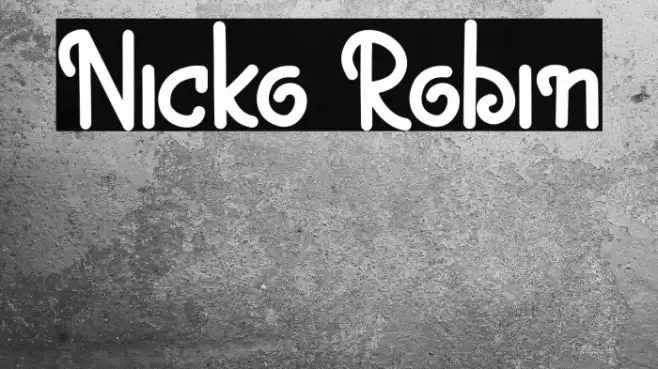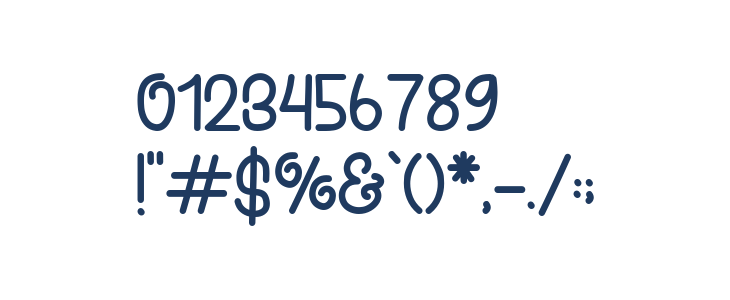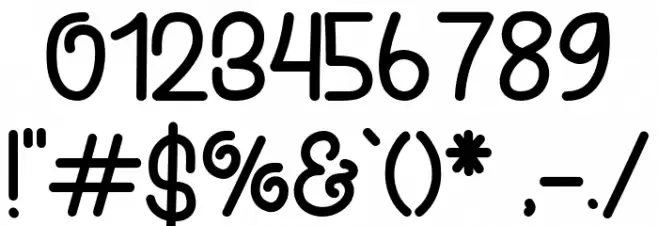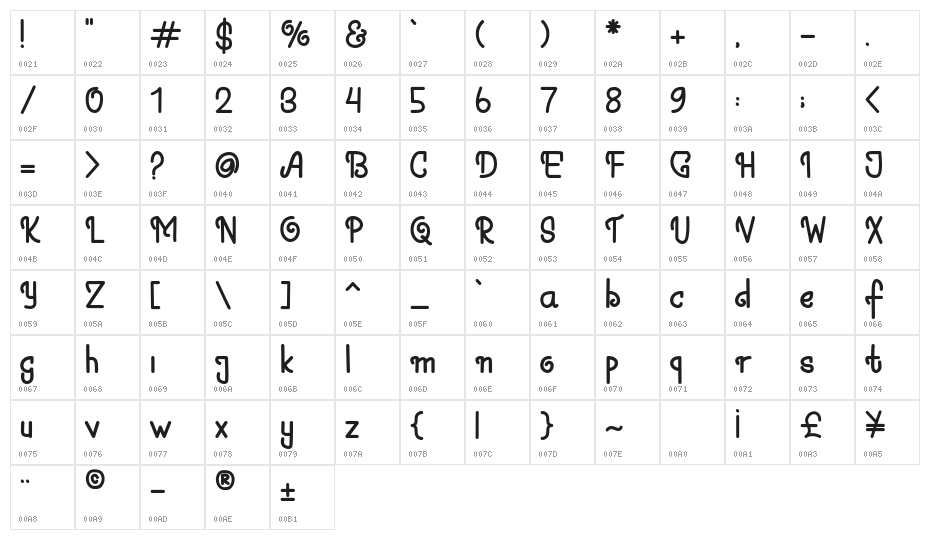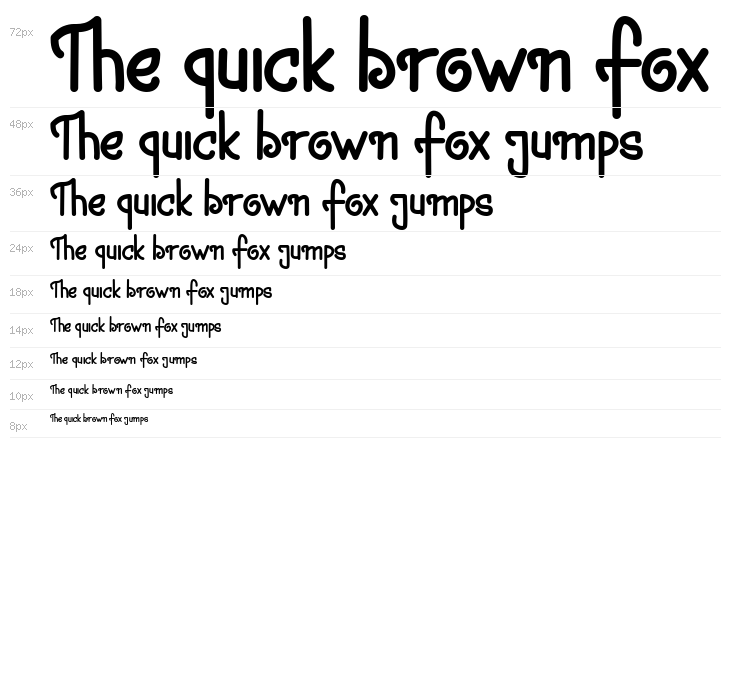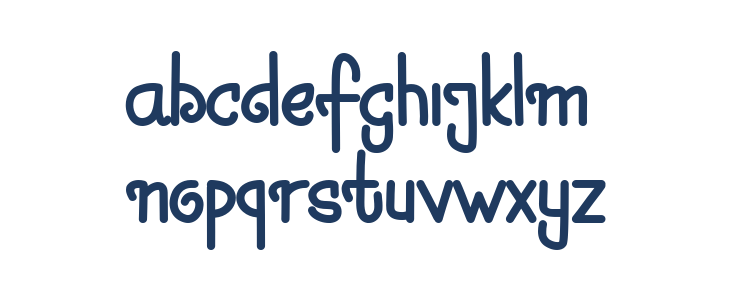
Nicko Robin Font
Nicko Robin Description
This playful and rounded font features a unique blend of whimsical curves and bold strokes, creating a friendly and approachable appearance. The characters are evenly spaced, with a consistent thickness that gives the font a cohesive look. The uppercase letters are slightly taller than the lowercase, maintaining a balanced proportion. The numerals and special characters are designed to match the overall style, ensuring uniformity across all glyphs. Its distinctive style makes it suitable for projects that require a touch of fun and creativity.
A playful, rounded font with whimsical curves and bold strokes from Curly fonts.
- Proposed Projects: Ideal for children's books, playful branding, greeting cards, and creative posters.
- Overall Style: Playful
- Use Case: Logos, Posters, Children's books